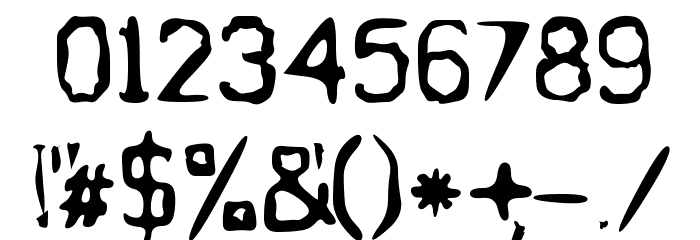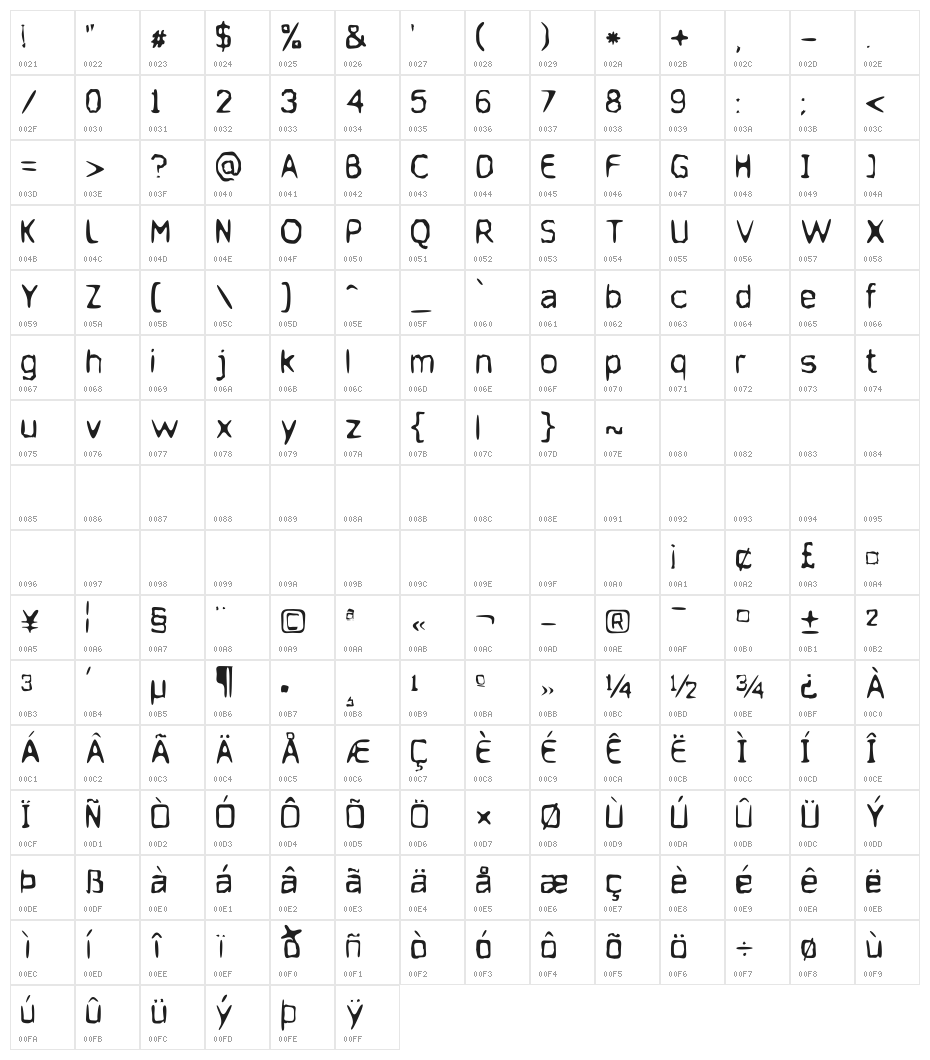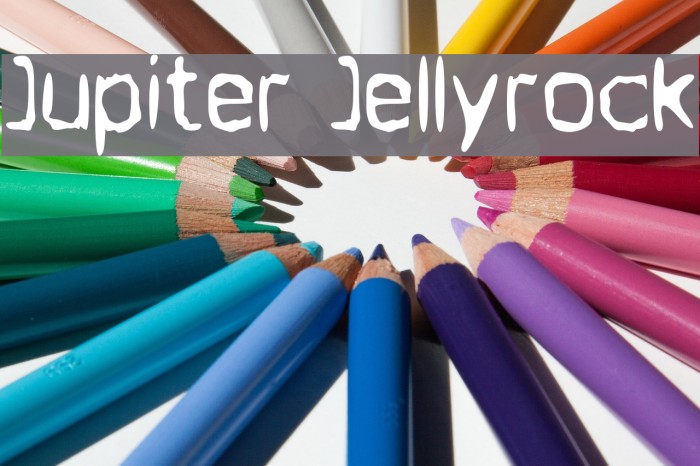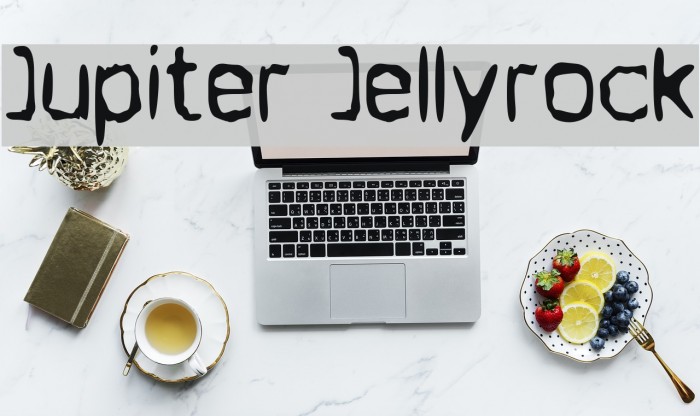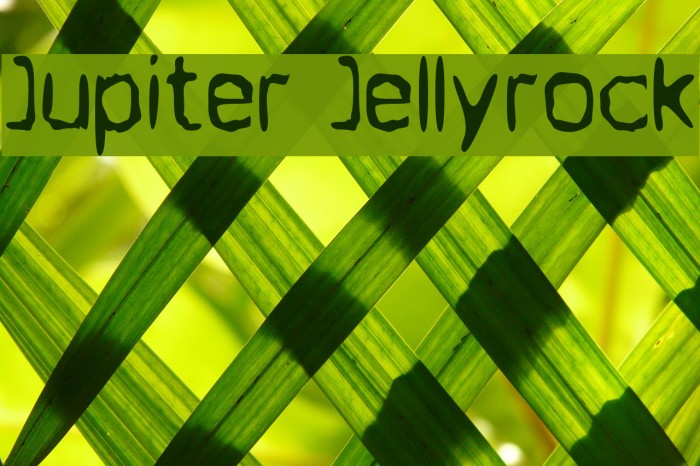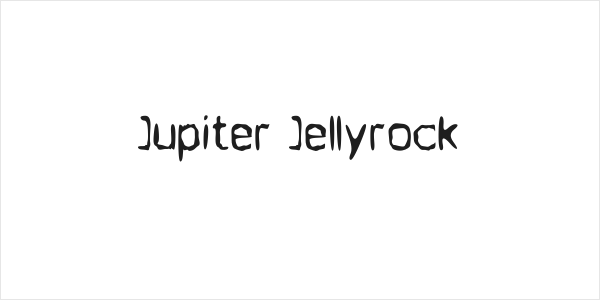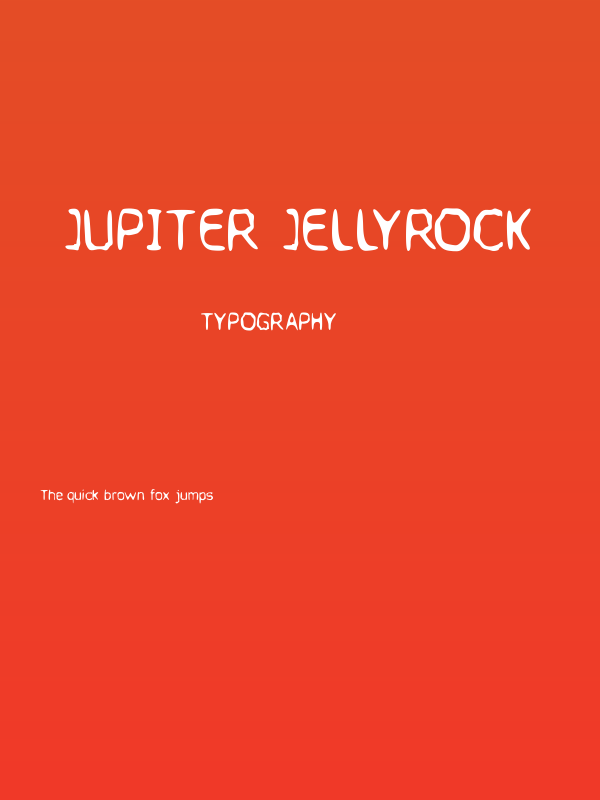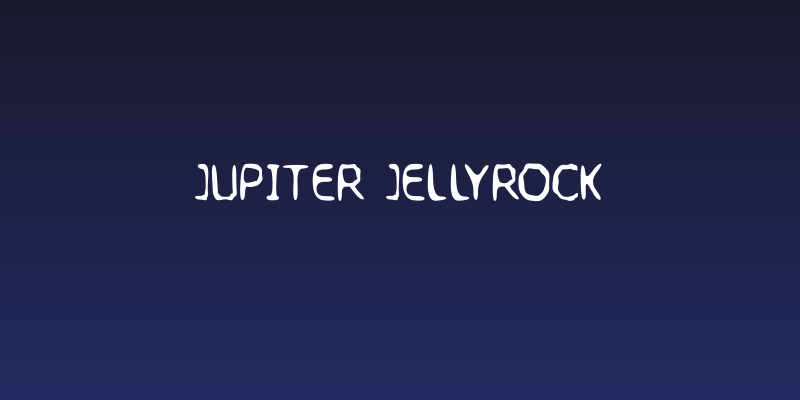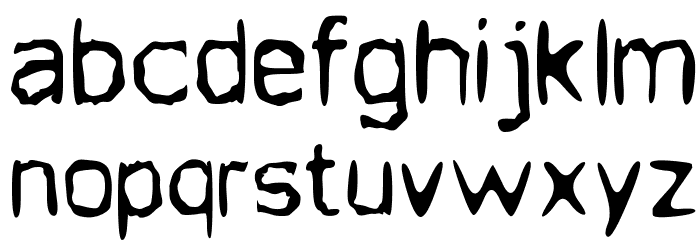
Jupiter Jellyrock Font
Jupiter Jellyrock Description
This font features a playful and organic design, characterized by its irregular and wavy strokes that give it a hand-drawn appearance. The letters have a unique, almost liquid-like quality, with varying thicknesses that create a dynamic and lively feel. The uppercase and lowercase letters maintain a consistent style, with rounded edges and a slightly uneven baseline that adds to the whimsical nature of the font. The numbers and special characters follow the same design principles, ensuring a cohesive look across all glyphs. This font's distinctive style makes it stand out, offering a creative and artistic touch to any project.
| Proposed Projects | Ideal for creative projects such as children's books, playful branding, artistic posters, and unique invitations. |